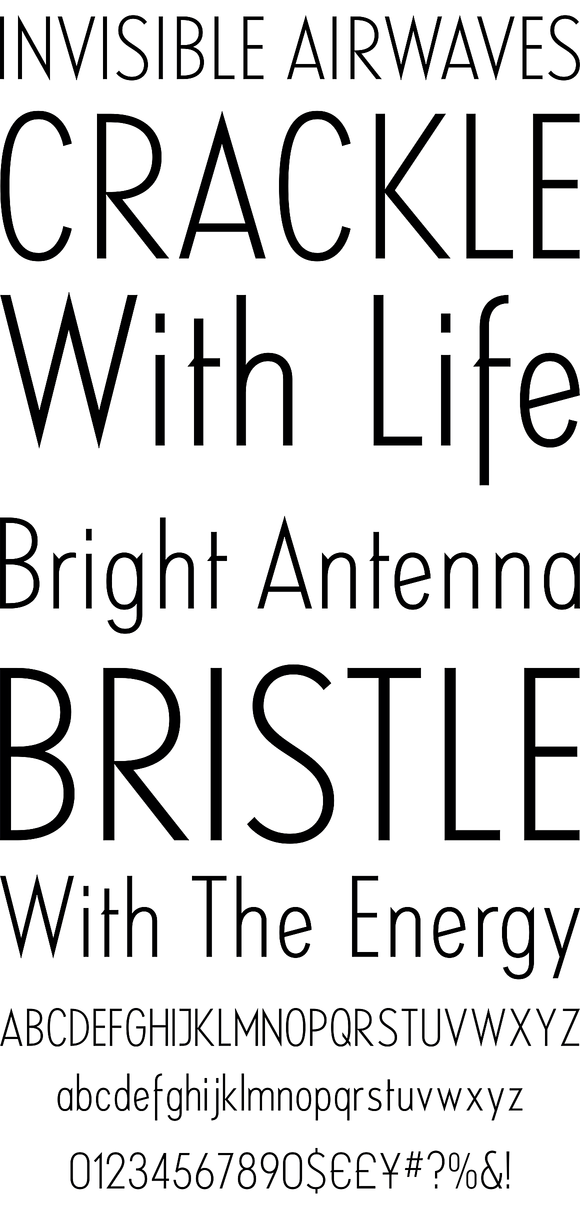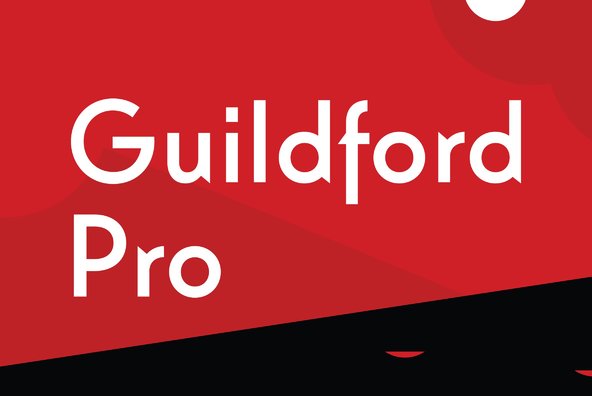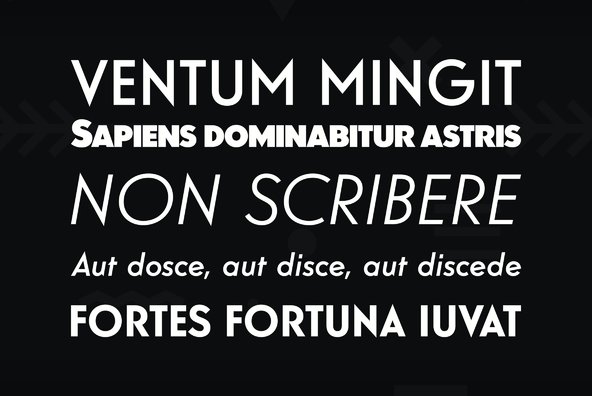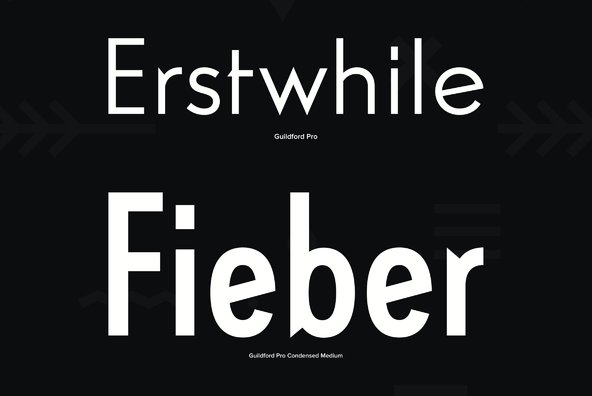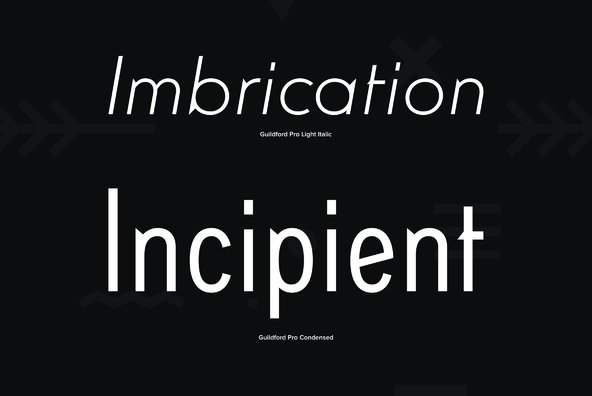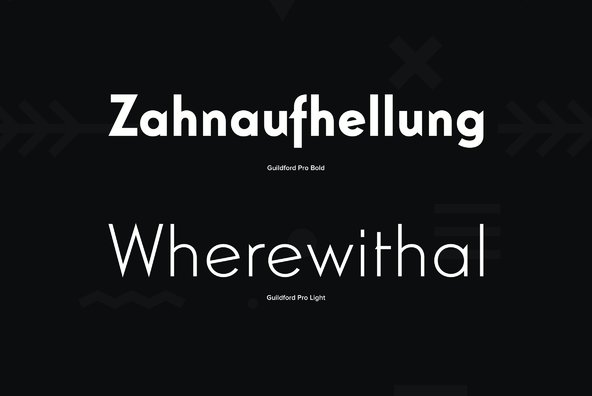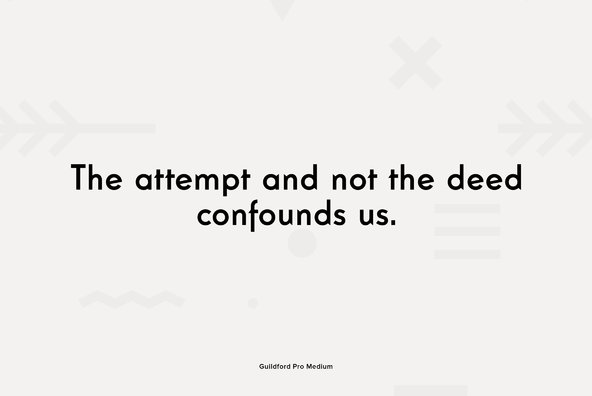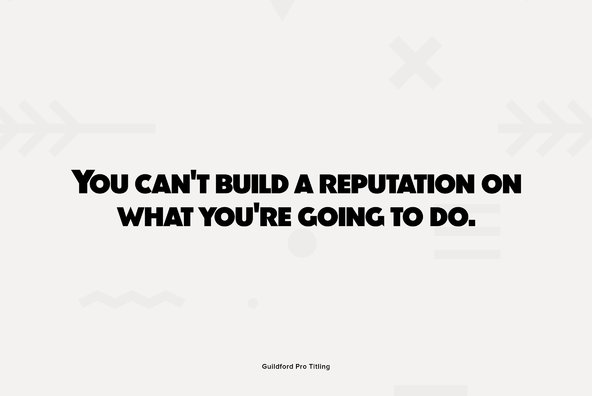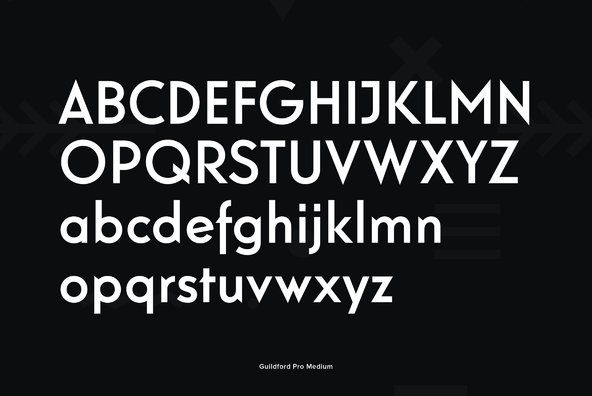
Designed by Steve Jackaman and Ashley Muir. Our Guildford is based on the Stephenson Blake typeface, Guildford Sans.
Designed by Steve Jackaman and Ashley Muir. Our Guildford is based on the Stephenson Blake typeface, Guildford Sans. Guildford Sans is identical to Elegant Grotesque, the 1928-29 design by Hans Möhring. Guildford contains all the high-end features expected in a quality OpenType Pro font.